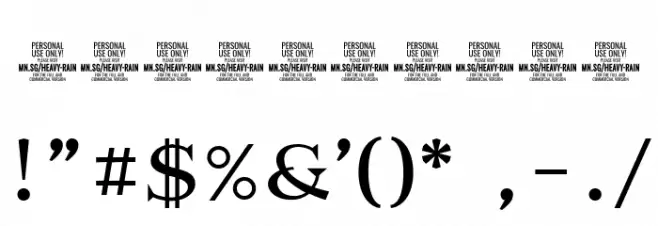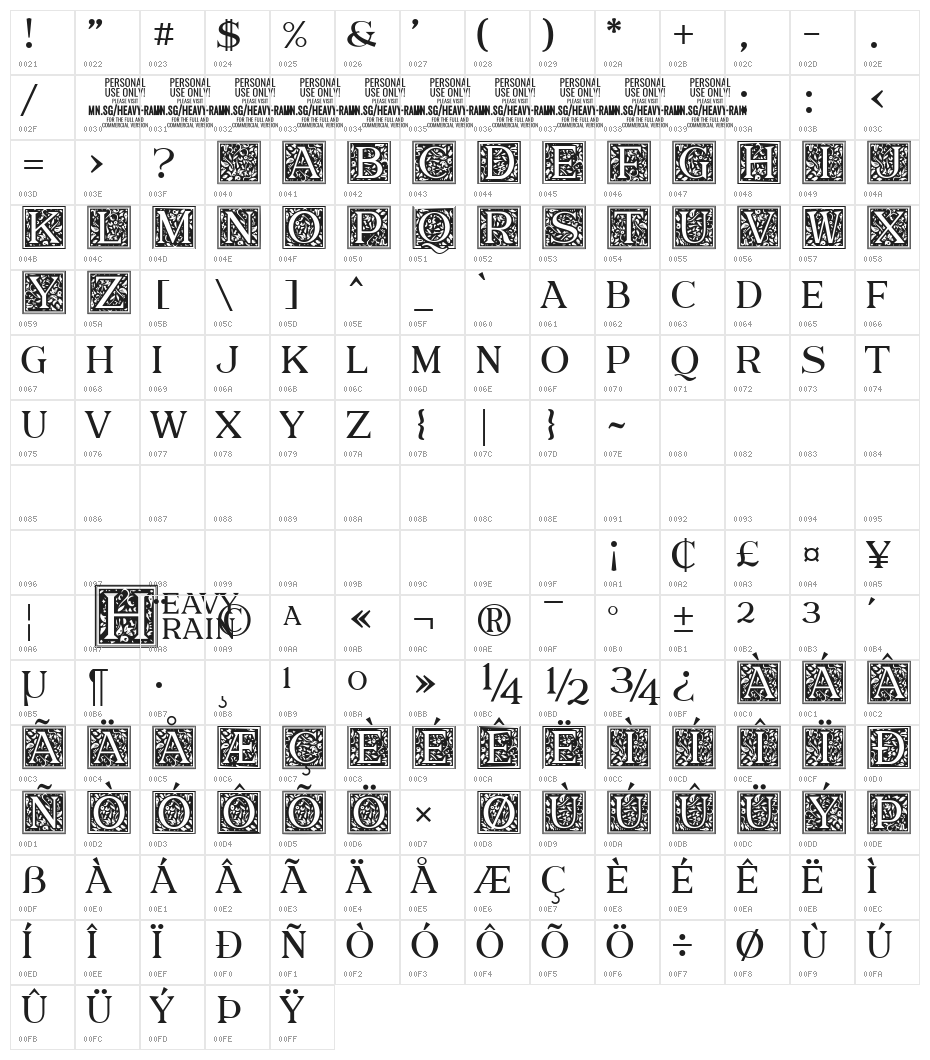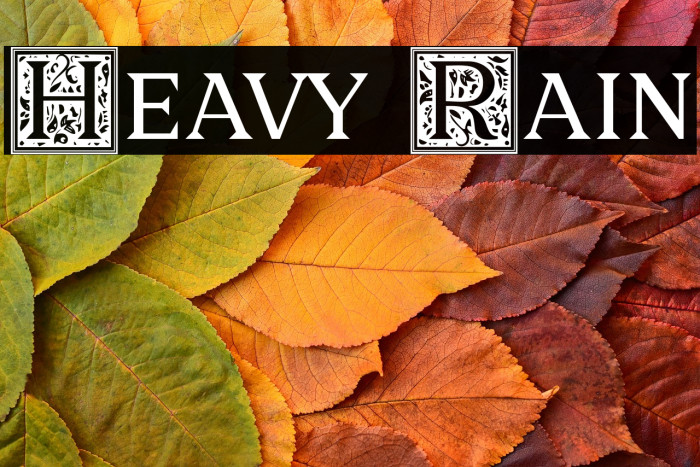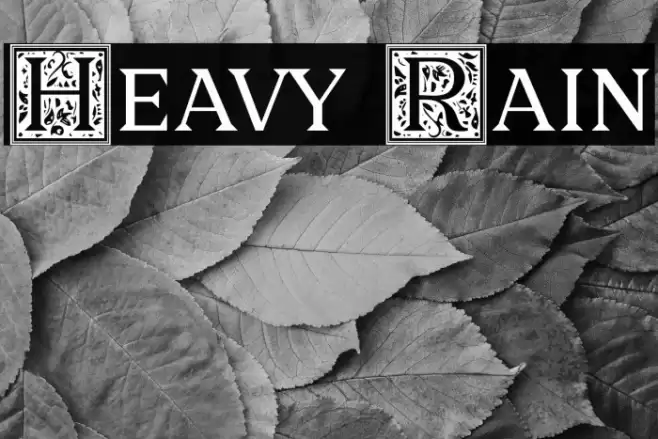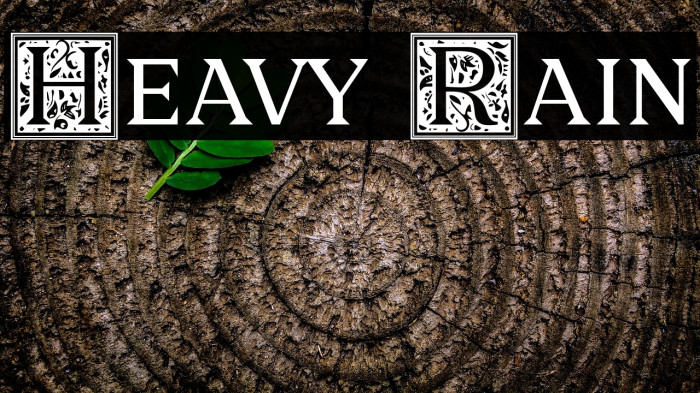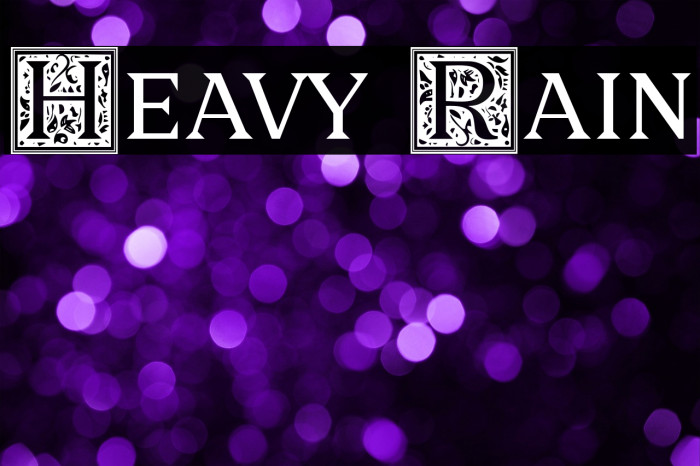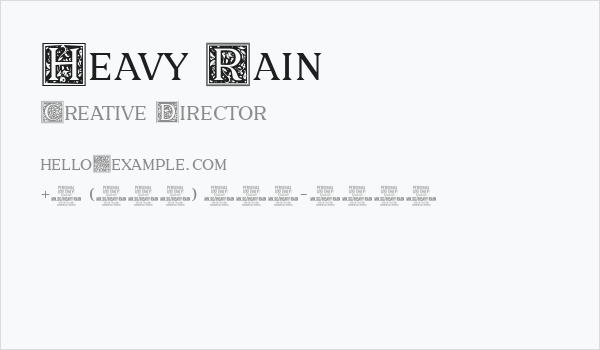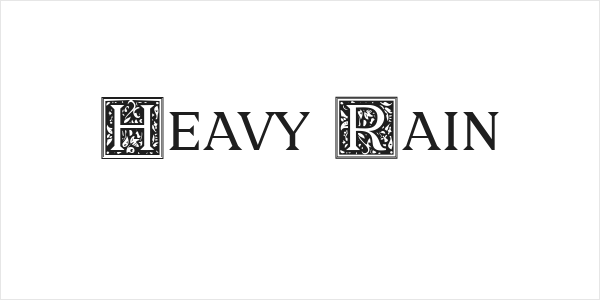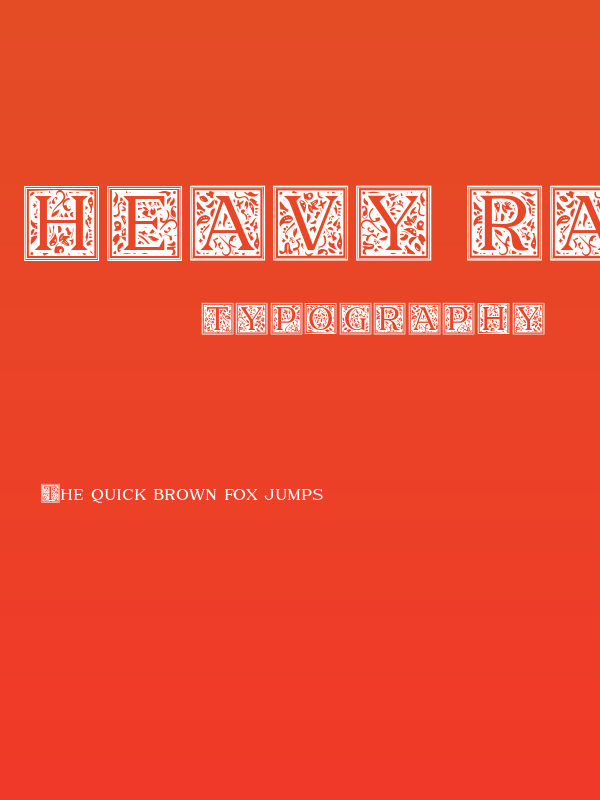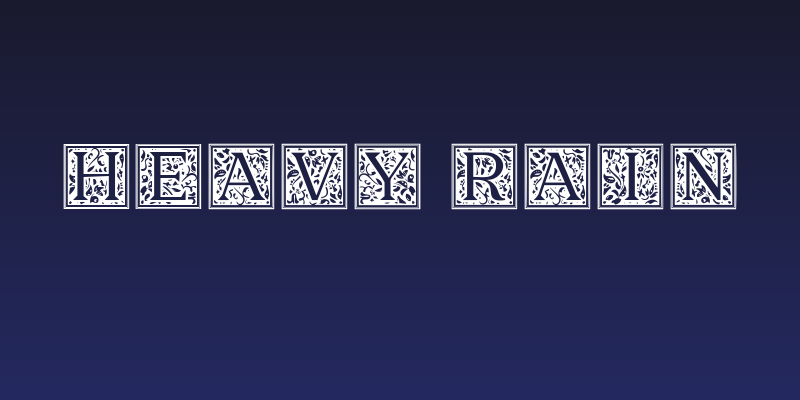
Heavy Rain Font
Heavy Rain Description
This font features a bold and decorative style with intricate patterns within each character, giving it a unique and artistic appearance. The uppercase letters are enclosed in a square frame with ornate detailing, reminiscent of vintage or classical designs. The font also includes a more traditional serif style for the uppercase alphabet, providing a contrast between the decorative and the classic. The special characters maintain the same decorative theme, ensuring consistency across all elements. This font is ideal for projects that require a touch of elegance and sophistication, such as invitations, posters, or branding materials.
| Proposed Projects | Ideal for invitations, posters, branding, and any project needing an elegant touch. |